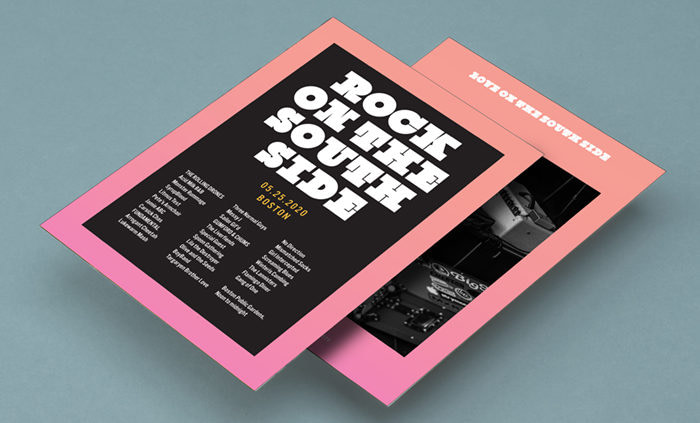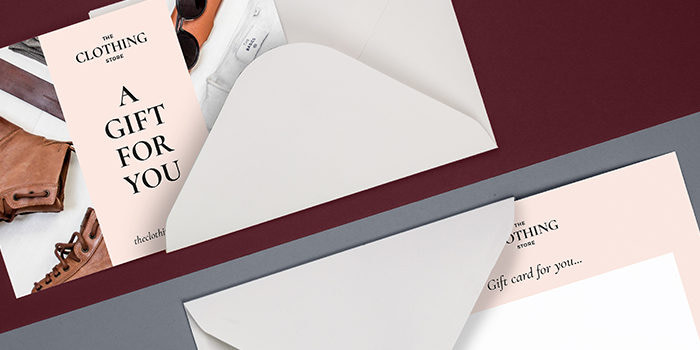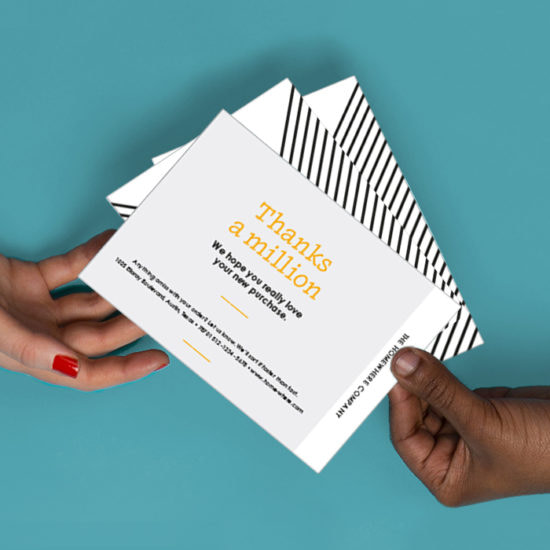
5 fonts (that aren’t Helvetica) to help you tell your brand story
We’ve picked 5 typefaces to inspire and delight, from open source indies and lesser-known classics to brand new fonts on the block. Which one is your favorite?
Use this hand-picked list of fine fonts to spark your imagination, for design and illustration, or just to add some typographical loveliness to your day…
Akzidenz Grotesk
Despite the unflattering name (‘grotesque’ just means sans serif in font language), this is an elegant, clean and tidy font with an impressive reputation as the first-ever sans serif. It creates a mood of calm and clarity with just a hint of softness.
Aksidenz Grotesk comes in a myriad of weights and widths, thanks to its trail-blazing popularity – it was created in Berlin in 1896 and sparked a wave of sans serif styles that spread from Germany across the world. Today, it’s the official font of the American Red Cross, and has also popped up in the branding of various US sports teams like the Brooklyn Nets.
Basic Commercial
It’s been around since 1900, but this hero of a font still looks as fresh as a daisy. A true classic, it was created by Linotype, one of the leaders in early ‘hot type’ printing, and influenced by the fonts of that era. Since its turn-of-the-century days, it has gone from strength to strength, inspiring other sans serif fonts and appearing in iconic places. (The signage for the New York City subway system, to name one.) Versatile, flexible, timeless – what’s not to love?
Black Slabbath
Who could resist a pun like that? Dubbed ‘the heaviest font in the world’, Black Slabbath belongs to the slab serif group of fonts, and is suited to gigantic, impact-making slogans and headlines. The white space in between the hulking letters is delicate by comparison, helping to balance out their impact. Not to be confused with the curlicued font used by the 1970s metal band, this one is much newer, designed in 2008.
Cormorant
Another open-source favorite, Cormorant is a Google Font that was created as a tribute to the classic Garamond, which dates back to the 16th century. It’s a serif style with a thick-and-thin feel that suggests delicate calligraphy, although it’s clean and uncluttered enough to work well in paragraph text as well as display headings.
With Cormorant, Garamond’s sophisticated yet homely feel was given a revamp, with greater contrast between the light and heavy. Crisper, sharper points and thinner lines have a pixel-perfect precision that wasn’t possible in the old days of analog metal typesetting.
Inkwell
A handwriting font that isn’t *that* handwriting font, Inkwell has many variants that range from glossy and professional to fun and a little bit goofy. Each of its incarnations offers the warmth and personality of handwriting, whether it’s dressed up formally to tell stories in text form, or twisted into runic shapes and doodle-like decoratives for headings and illustrations. Buying the whole 48-piece set of fonts doesn’t come cheap, but the vendor offers them sliced and diced in various smaller, more affordable packages depending on the style you’re after.